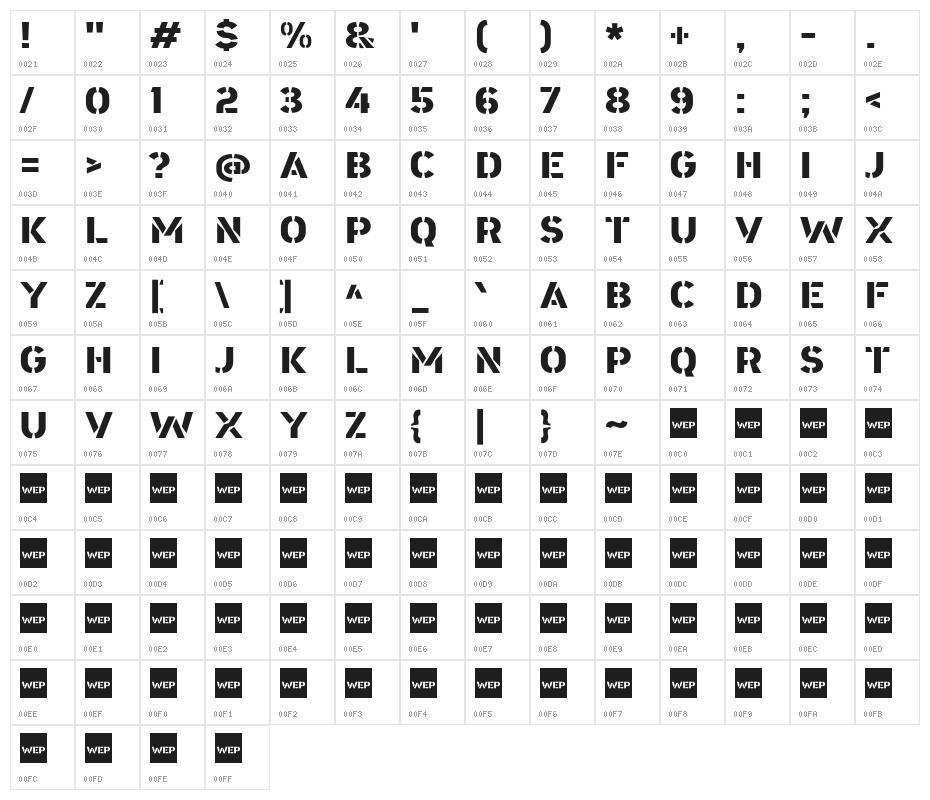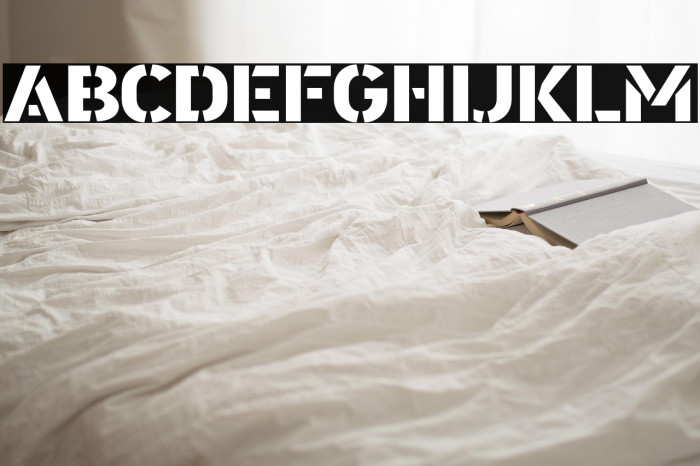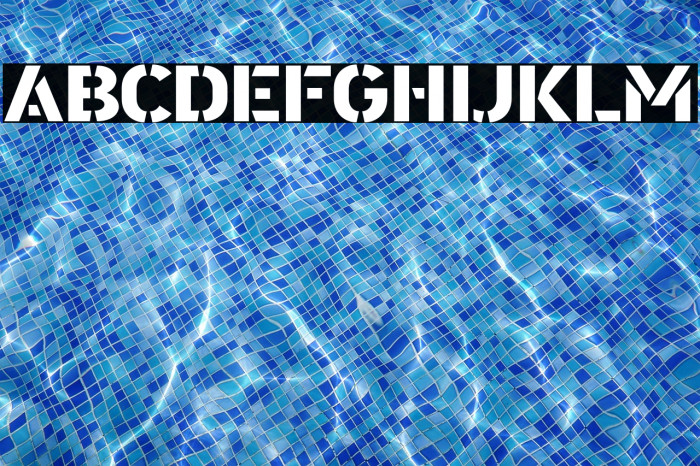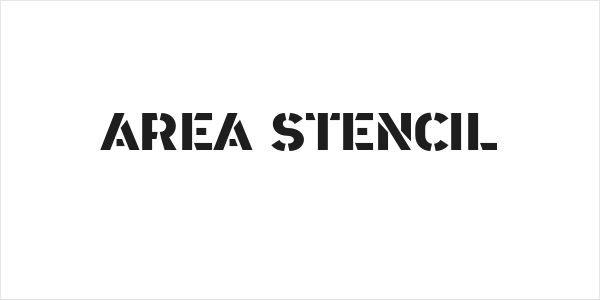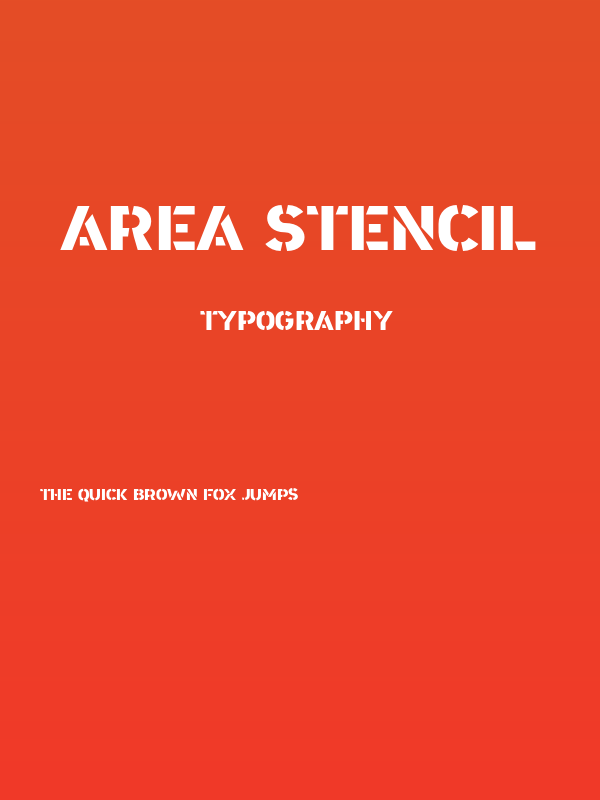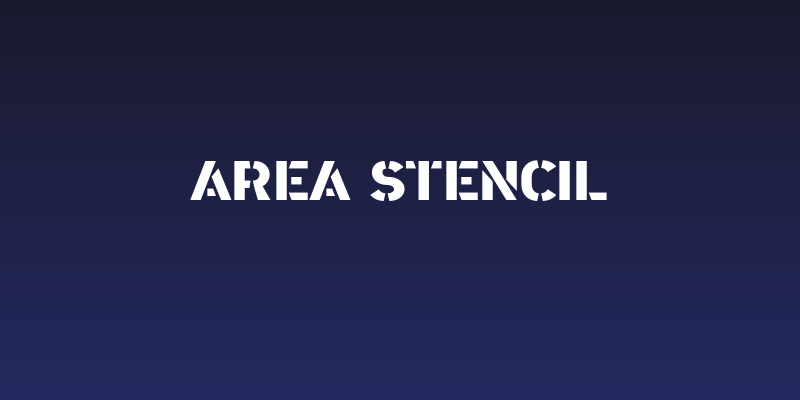
Area Stencil Font
Area Stencil Description
This font features a bold, stencil-inspired design with strong geometric shapes and clear cutouts, giving it a rugged and industrial feel. The uppercase letters are particularly striking, with sharp angles and a consistent width that maintains readability while adding a distinctive character. The numbers and special characters follow the same design principles, ensuring a cohesive look across all text. The font's boldness and unique style make it ideal for projects that require a strong visual impact.
| Overall Style | Industrial, Modern |
| Proposed Projects | Ideal for posters, signage, branding, and any project needing a strong, industrial aesthetic. |